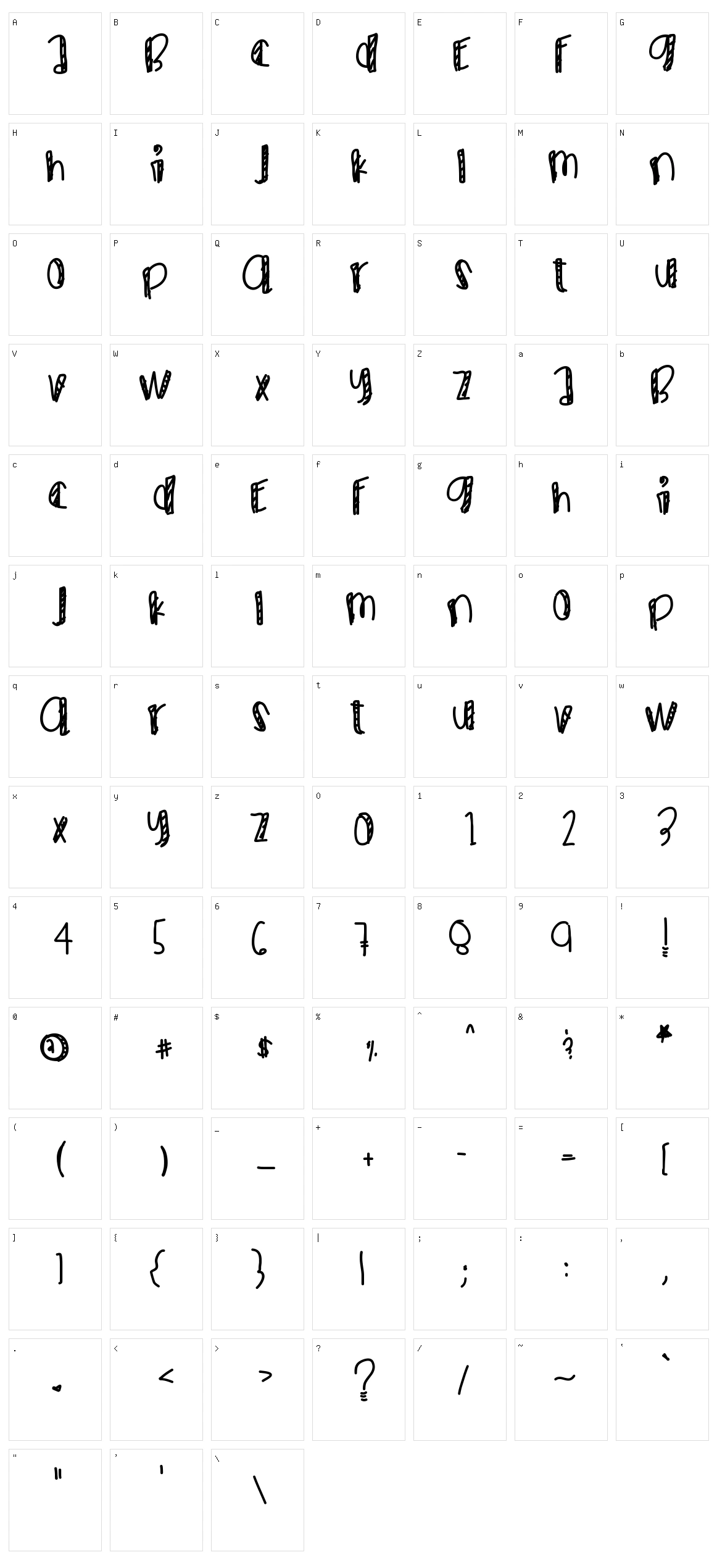
The free font Max Be Cool is carefully designed by Des Gomez, showcasing a thoughtful balance of creativity and usability and falls under the Cartoon font style. When you download the ZIP file, it contains only 14.45 KB of font files, making it lightweight and quick to download. Please review the license details below to understand permitted usage and distribution rights. If license information is not available, we recommend using this font for personal projects only or contacting the author directly for commercial usage permissions.